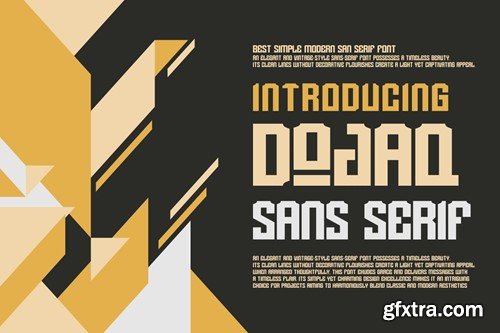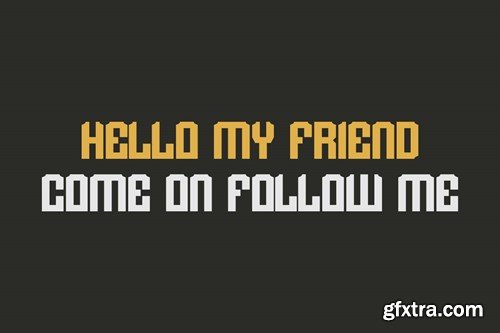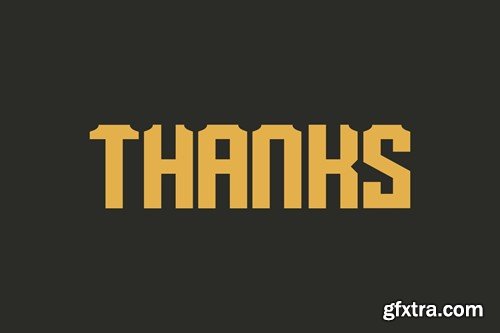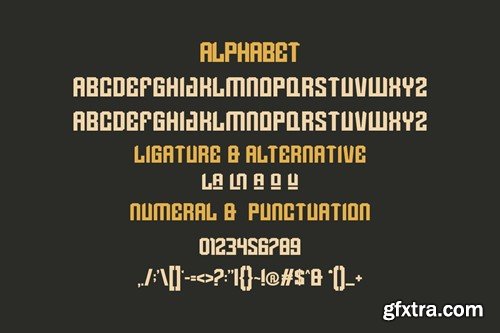
道嘉 - 一款流行字体H8KAUFB
Dojaq - A Popular Font
Introducing Dojaq Modern Sans Serif Font. Dojaq is a modern and simple font, best used as a display for headings, logos, branding, magazines, product packaging and invitations. Dojaq come with clean lines and smooth curves give any project an extra touch of class. What you get: Thank you.